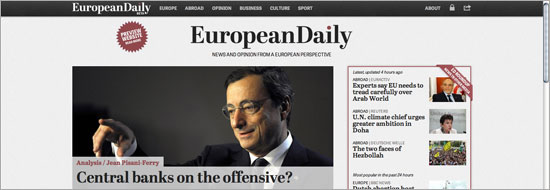
The recently launched Beta version of the news portal European Daily already grants full access for all visitors to enjoy a selection of informative and analytical articles with Europe as a frame of reference. It will be a platform for pan-european debate transcending national borders and feature interesting issues in politics, business, culture and sport. The careful design takes advantage of the features and newsy feel of Abril and Tablet Gothic, two type families carefully engineered for cross-platform publishing.
The European Daily has been designed and developed by Johan Malmsten and his colleagues Christofer Berg and Daniel Freund. They say: "We were looking for a set of fonts that would give a classic, yet contemporary feel; work equally well in digital and printed form; and lend itself to an airy design where the quality content is in focus. The combination of Abril Display/Text and Tablet Gothic fitted that bill perfectly."